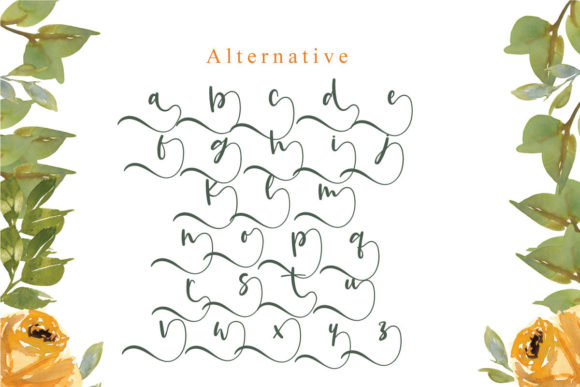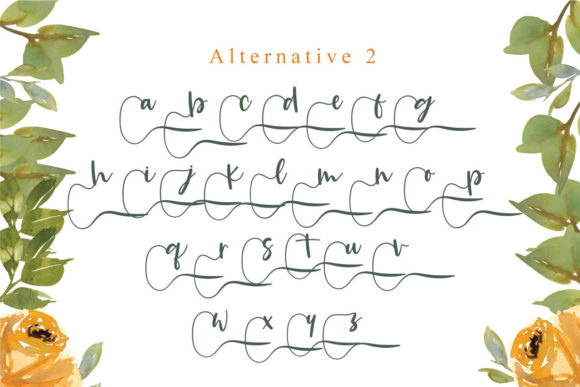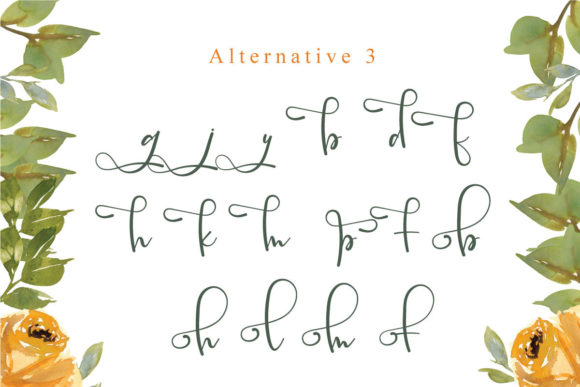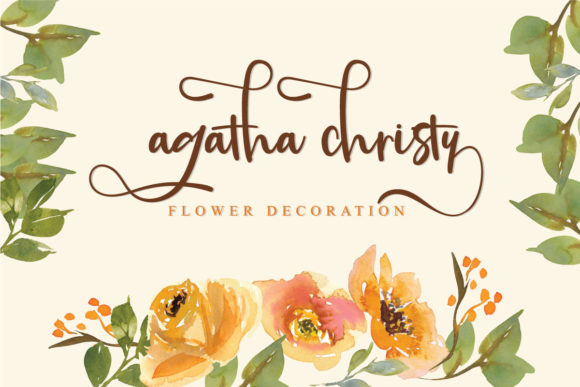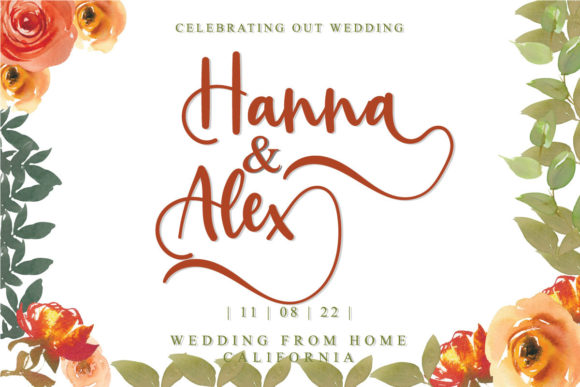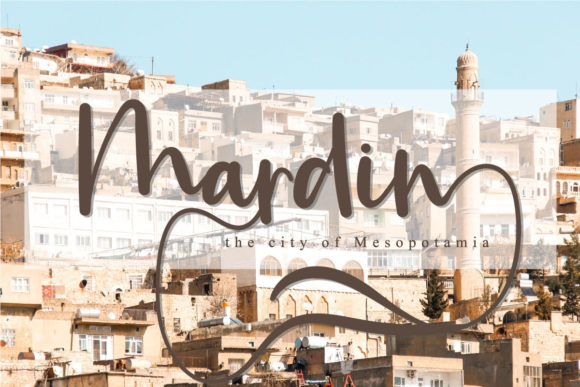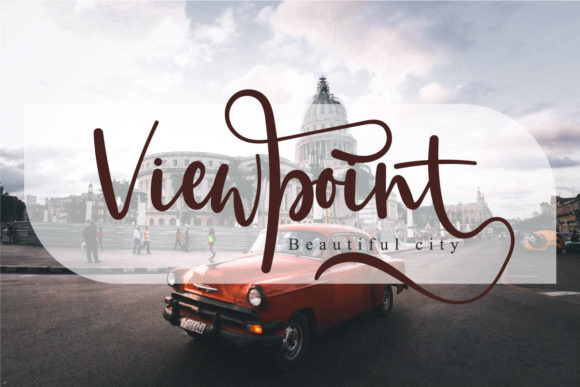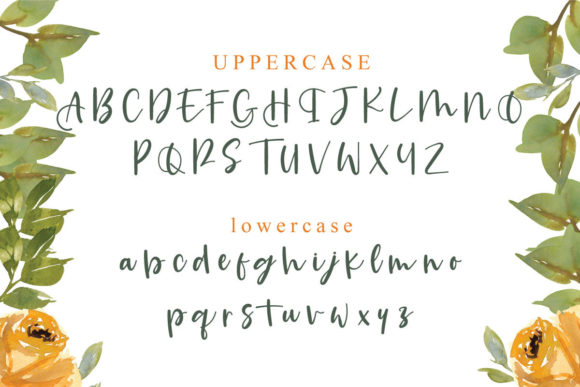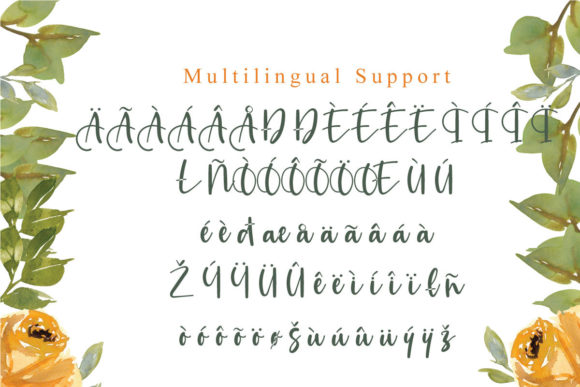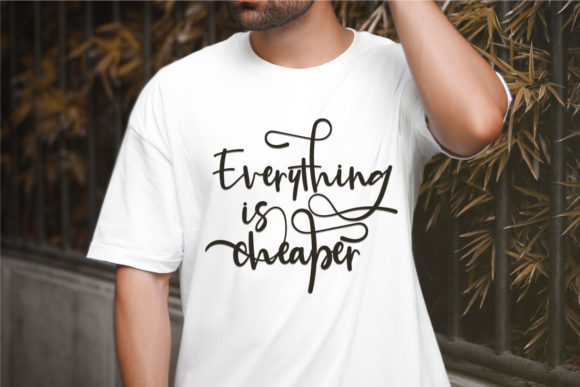
Mention Font
About Mention Font
Mention is a delightful script font that brings a touch of charm and elegance to a variety of design projects. With its graceful and flowing characters, this font is particularly well-suited for applications that require a personal and expressive touch.
One of the notable strengths of Mention is its versatility in design quotes. The font’s fluid and stylish appearance can accentuate the impact of inspirational or motivational quotes, capturing the attention of readers and conveying the message with a touch of sophistication. Whether used on social media posts, posters, or print materials, Mention adds an artistic flair that enhances the visual appeal of the text.
Invitations also benefit from Mention’s lovely script style. From wedding invitations to party invites, the font can evoke a sense of elegance and celebration, setting the tone for the event. Its graceful curves and unique flourishes make each invitation feel like a work of art, giving recipients a glimpse of the special occasion’s ambiance.
For crafts and DIY projects, Mention adds a handmade feel that resonates with creativity. Whether used on handmade cards, scrapbooking layouts, or personalized gifts, the font’s artistic qualities contribute to a sense of uniqueness and thoughtfulness in each project.
Logos designed with Mention stand out with a distinct and memorable look. The font’s graceful script can help convey the brand’s personality and values, making it a valuable asset for businesses and entrepreneurs seeking a stylish and elegant visual identity.
Additionally, Mention’s elegant and expressive nature makes it a great fit for a range of design contexts. It can be used on packaging, labels, merchandise, and any project that benefits from a touch of refined and artistic typography.
Incorporating Mention into your designs is easy, and its lovely script style ensures that your projects exude a sense of charm and sophistication. With its versatility and ability to enhance a wide array of design materials, Mention is a font that adds a special touch to quotes, invitations, crafts, logos, and more.